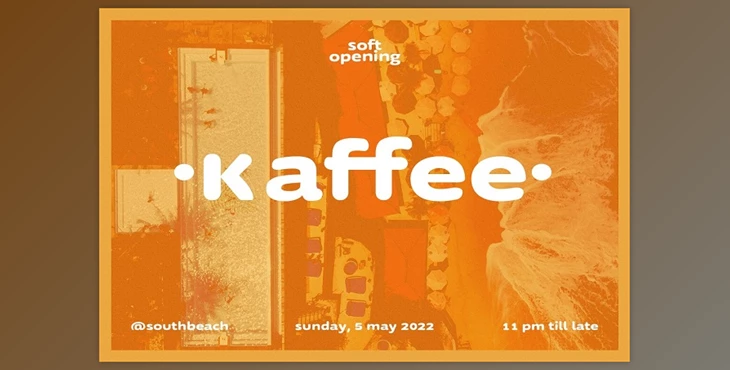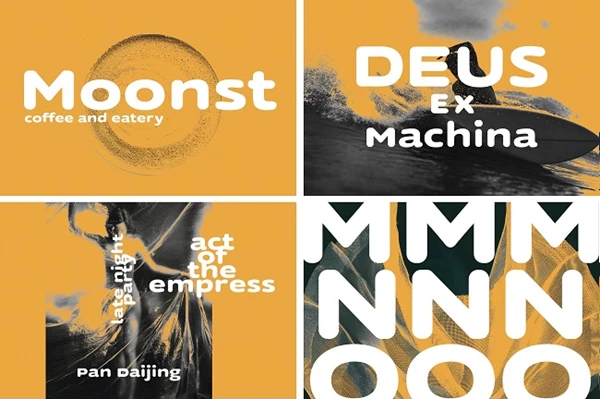
The Magstone Sans Round Display Font offers a contemporary and playful style with wide, heavy strokes, alternates, and ligatures.
Supporting over 100 languages, it's suitable for various purposes such as logos, social media, titles, and body text. Available in TTF and OTF formats, Magstone enables you to create captivating artwork effortlessly.